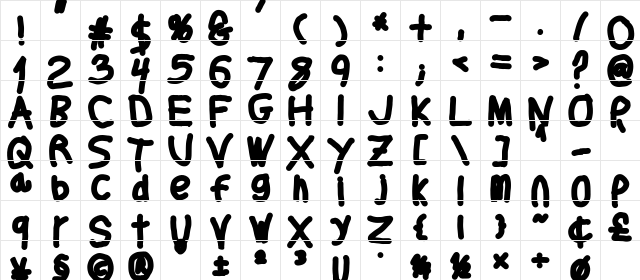
Thicker Than... Medium
Design Context for Thicker Than... Typeface
Thicker Than... is a composed and adaptable typeface that performs quietly and consistently across a wide range of design contexts.
Pro Tip: Use Thicker Than... in both headline and body roles to test its range before committing to a single application.